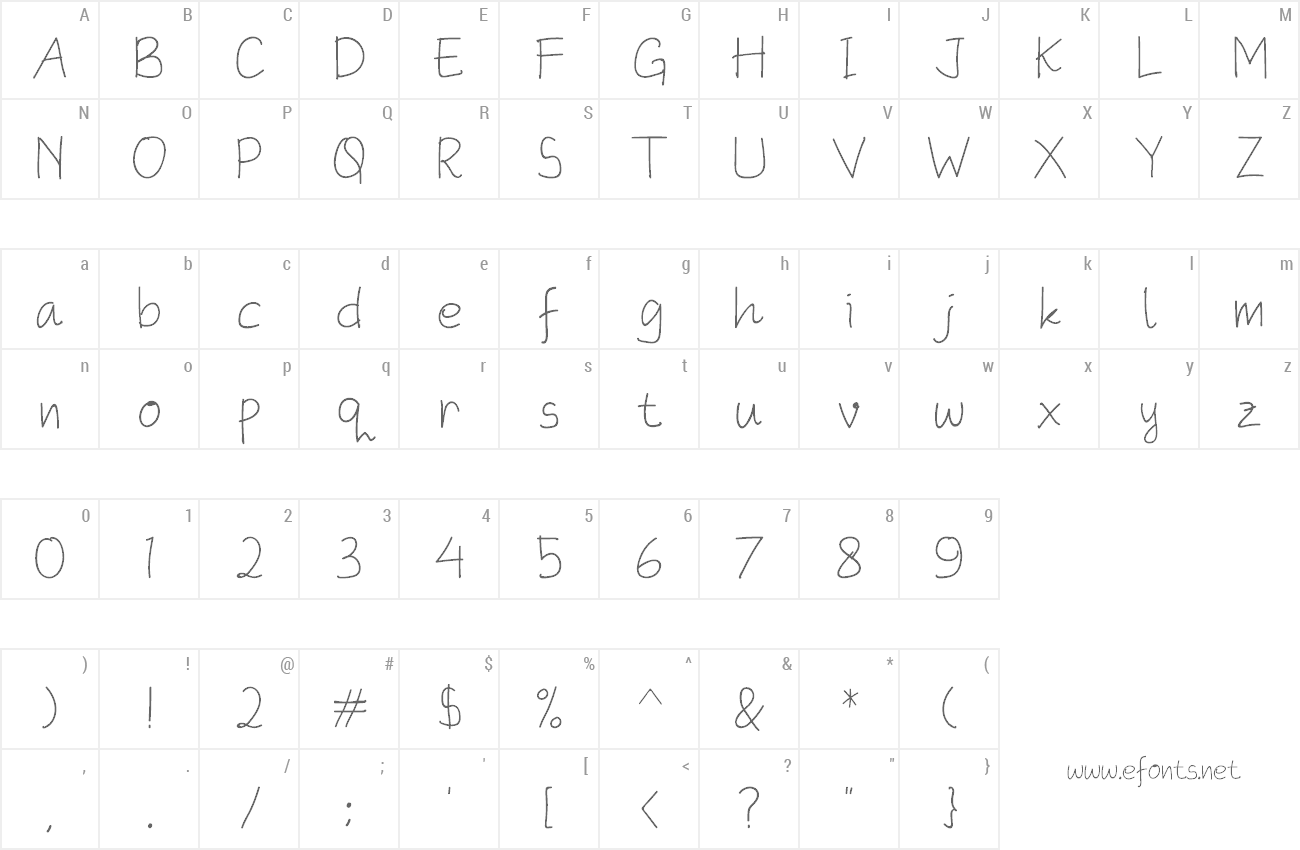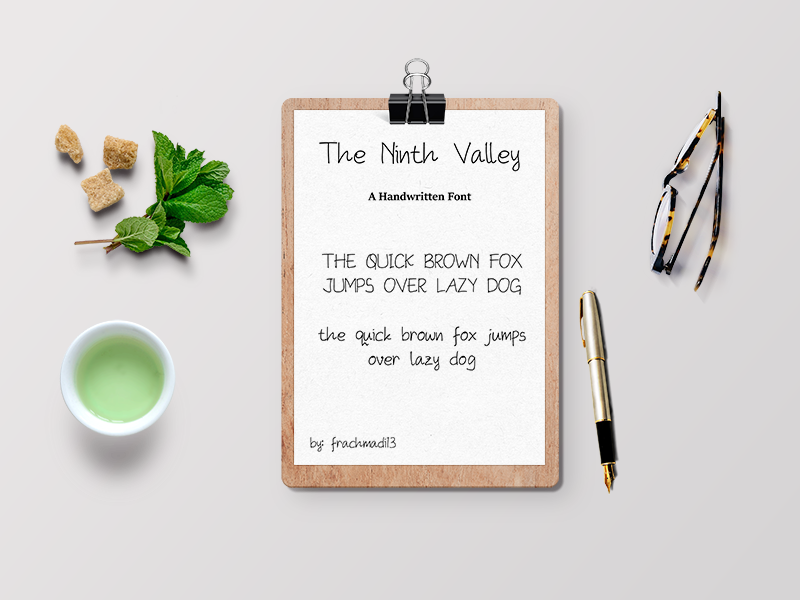
| Font name: | The Ninth Valley |
| Author: | Fajar Rachmadi |
| Note by Fajar Rachmadi | |
The Ninth Valley - a new modern & fresh handwritten font. It makes this font looks natural, stylish, and perfect for any awesome projects that need handwriting taste. The Ninth Valley would be perfect for photography, lyric video, watermark, social media posts, advertisements, or any special event that need handwriting feel. What's Included in this DEMO : The Ninth Valley TTF Works on PC & Mac Simple installations Accessible in the Adobe Illustrator, Adobe Photoshop, Adobe InDesign, even work on Microsoft Word. Fonts include multilingual support for; Afrikaans, Albanian, Catalan, Danish, Dutch, English, Icelandic, Italian, Spanish, Portuguese, German, Swedish, Norweigen, Polish, Indonesian, Zulu NOTE : This demo is for PERSONAL USE ONLY! But any donation are very appreciated. Paypal account for donation : https://www.paypal.me/frachmadi13 link to purchase full version and commercial license : https://fontbundles.net/frachmadi13/156502-the-ninth-valley Please visit our store for more great fonts : https://fontbundles.net/frachmadi13 Hope you enjoy with our font! Thank you for your purchase! |